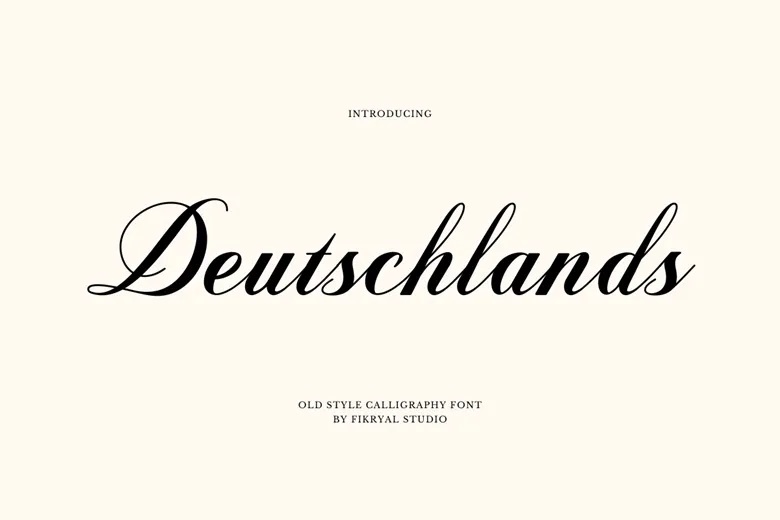
Deutschlands Font
Deutschlands is a calligraphy script font. This font is practiced in the modern style, it is informal, and will be relevant for different designs that you require. You can use it for Logos, Branding, Titles, Social Media Posts, Advertisements, Product Packaging, Product Designs, Labels, Photography, Special Events, Magazines, Web Design among others.
Deutschlands Calligraphy Script Font